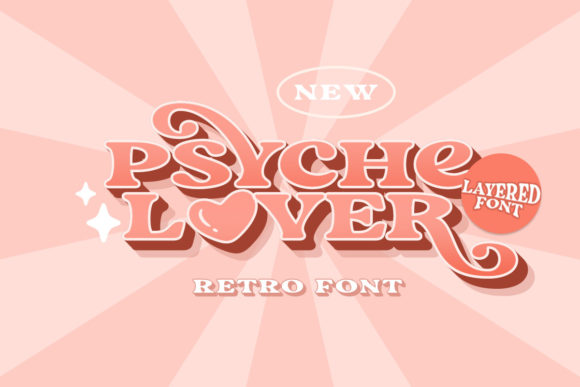
Step into a world of enchantment with Psyche Lover Font, a display font that captivates with its retro charm. This exquisite creation by saridezra transports you back in time, evoking a sense of nostalgia and allure. Whether you're a crafting enthusiast, a digital designer, or a presentation maestro, Psyche Lover Font is your perfect companion.
Immerse yourself in the boundless possibilities of expression with this font family, meticulously designed to cater to your branding endeavors. With its unique character, Psyche Lover Font adds a touch of sophistication to your designs, making them stand out from the crowd.
Unleash your creativity and embark on a journey of visual storytelling with Psyche Lover Font. Its timeless appeal adds a layer of depth and intrigue to your projects, captivating your audience with its undeniable allure. Let your imagination run wild as you craft digital designs that exude elegance and timeless beauty.
Create greeting cards that carry a heartfelt message, adorned with the distinctive charm of Psyche Lover Font. Its carefully crafted glyphs add a personal touch to your creations, making each card a cherished keepsake.